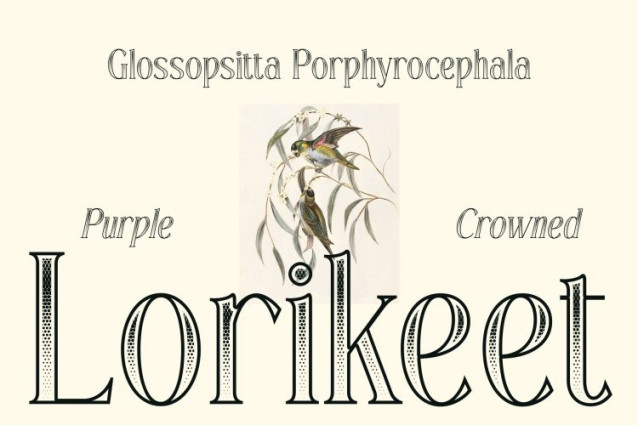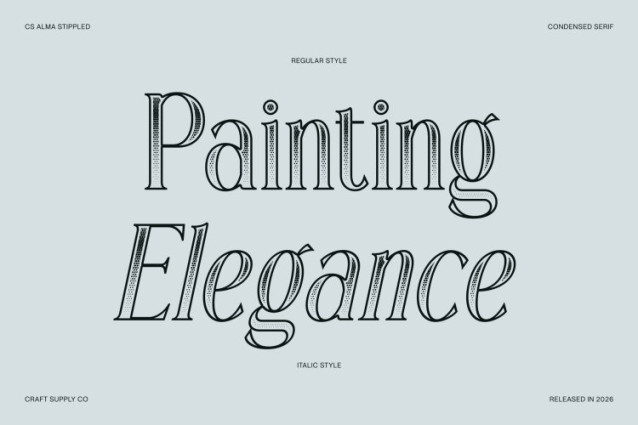
CS Alma Stippled Font
CS Alma Stippled Font This is a condensed modern serif font designed to express elegance through refined proportions and contemporary structure, now enhanced with a dense stippled texture. Its narrow letterforms create a strong vertical rhythm, while the dotwork surface reminiscent of classic ink-dot and stippling illustration techniques adds artistic depth and a handcrafted, vintage-inspired character. The result is a font that feels sophisticated, modern, and visually distinctive.
Long, Slim Serifs with Textured Grace
The font’s defining long, slim serifs introduce a sense of luxury and finesse. Enhanced by subtle stippled detailing, these delicate extensions create a graceful flow across each character while preserving clarity and balance. The dotted texture softens the sharpness of the serifs, lending a refined, tactile quality that elevates the overall typographic experience.
Contemporary Structure with Elegant Presence
Blending classic serif elegance with modern design sensibilities, maintains a fresh and fashion-forward feel. Its condensed proportions contribute to a confident, editorial aesthetic, while the stippled treatment adds warmth and visual richness allowing the font to stand out with poise rather than overpowering the layout.
Ideal for Luxury Branding and Editorial Design
Perfect for luxury branding, posters, and editorial layouts, excels in headlines, titles, and refined typographic compositions. Whether used in fashion campaigns, premium packaging, or magazine design, it communicates sophistication, style, and modern luxury with an artistic, handcrafted impression that leaves a lasting impact.